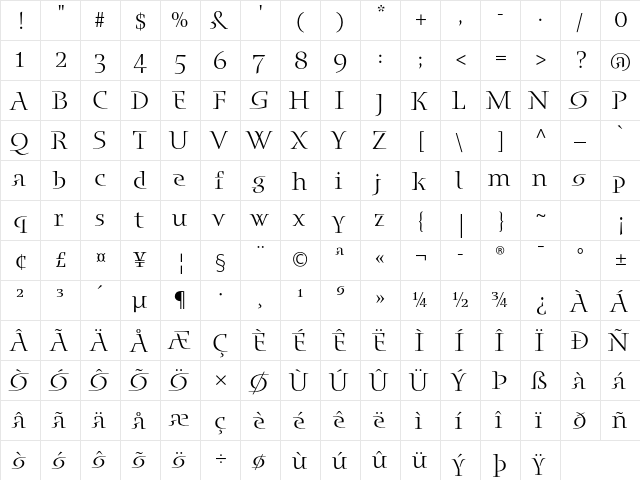
Blue Island Std Regular
| Designer | Jeremy Tankard |
Design Context for Blue Island Std Typeface
Blue Island Std is a composed and adaptable typeface that performs quietly and consistently across a wide range of design contexts.